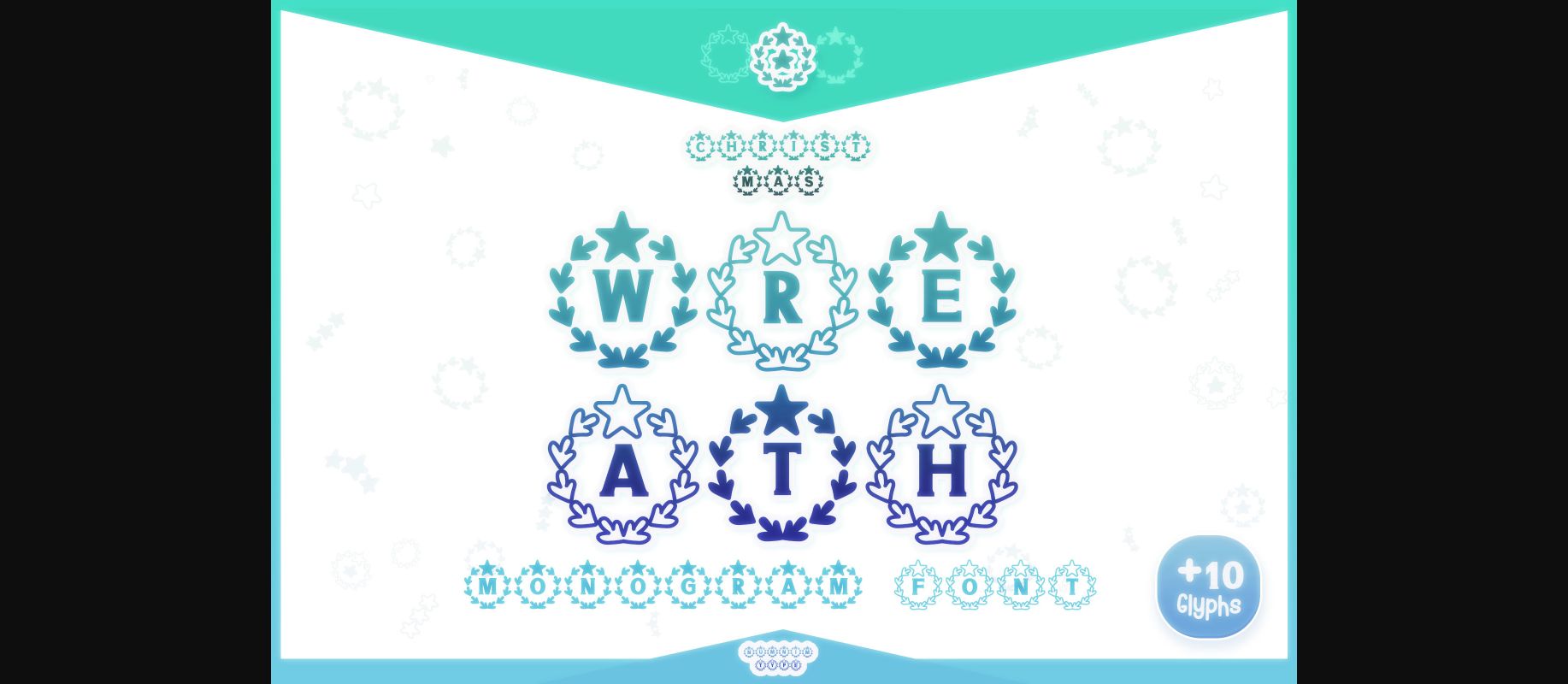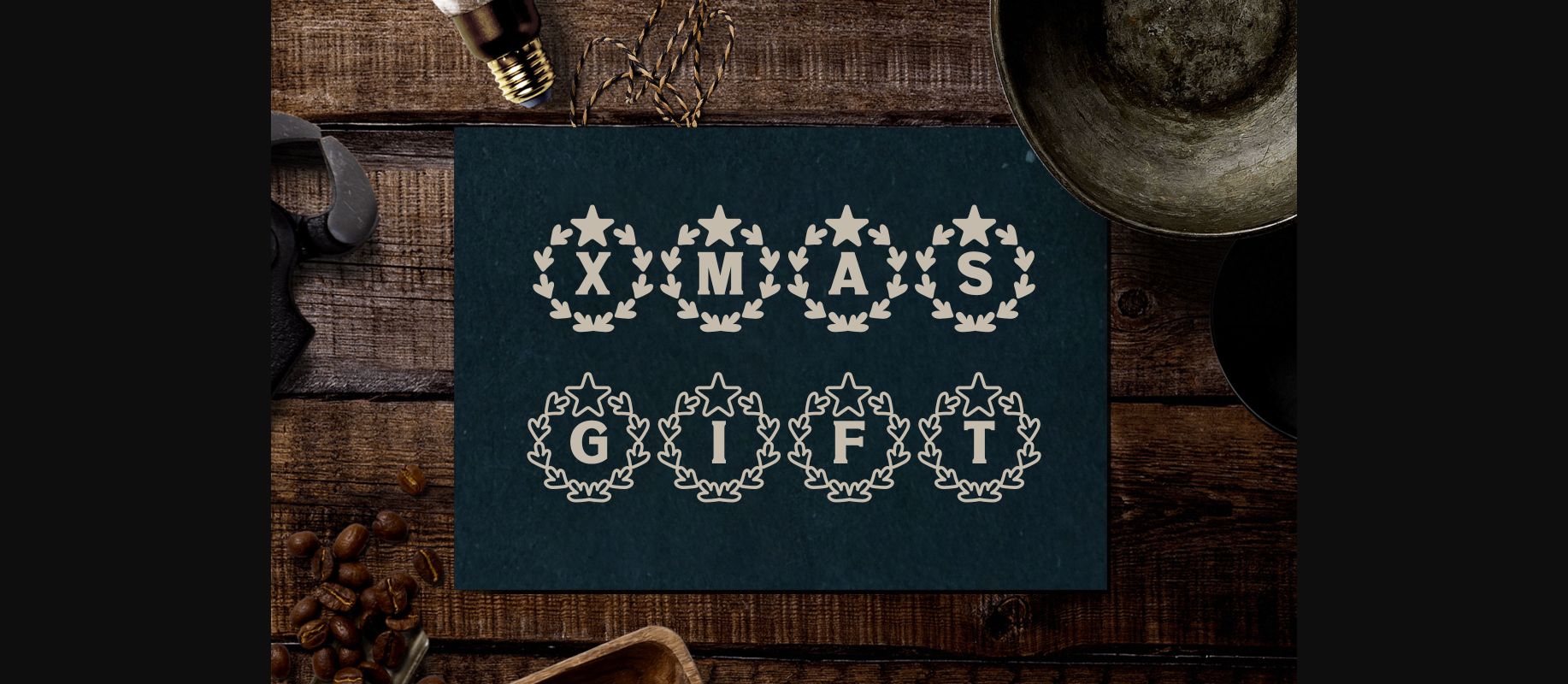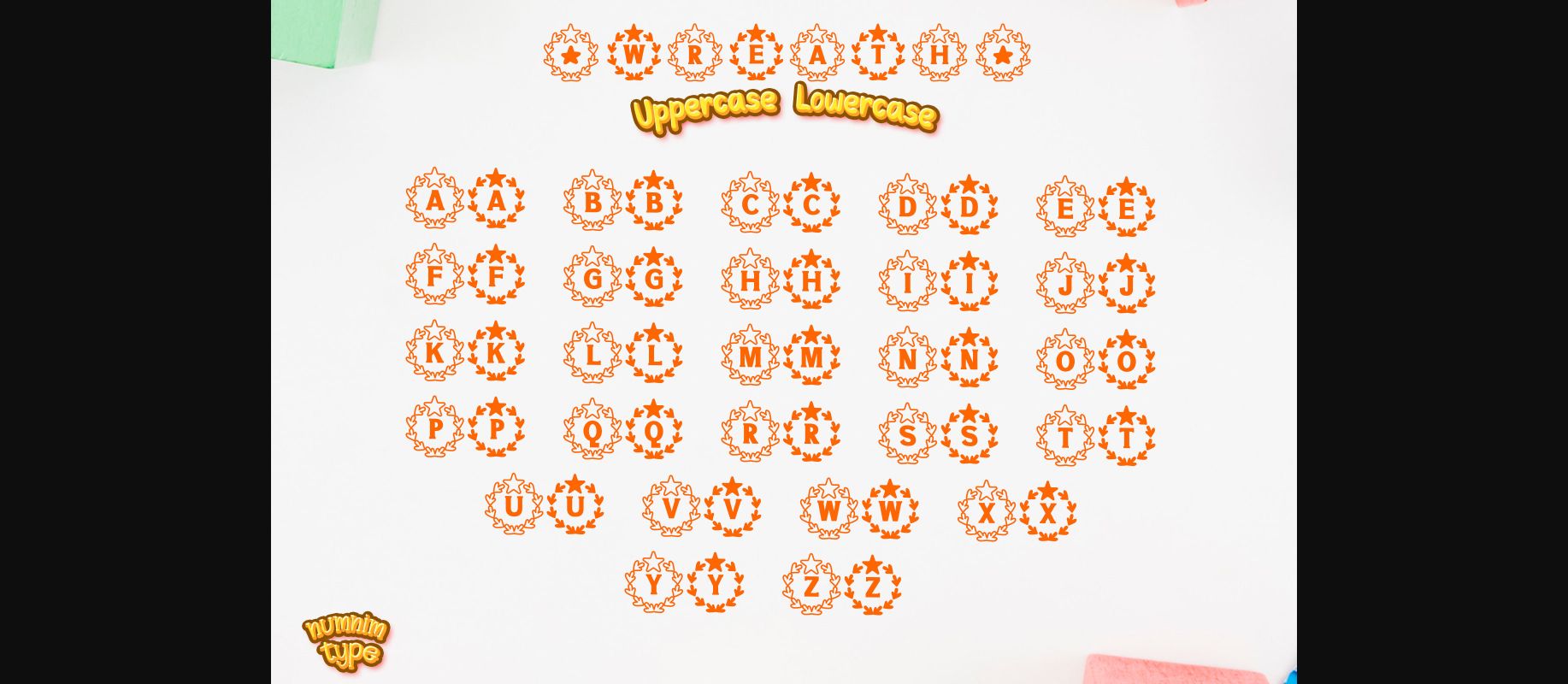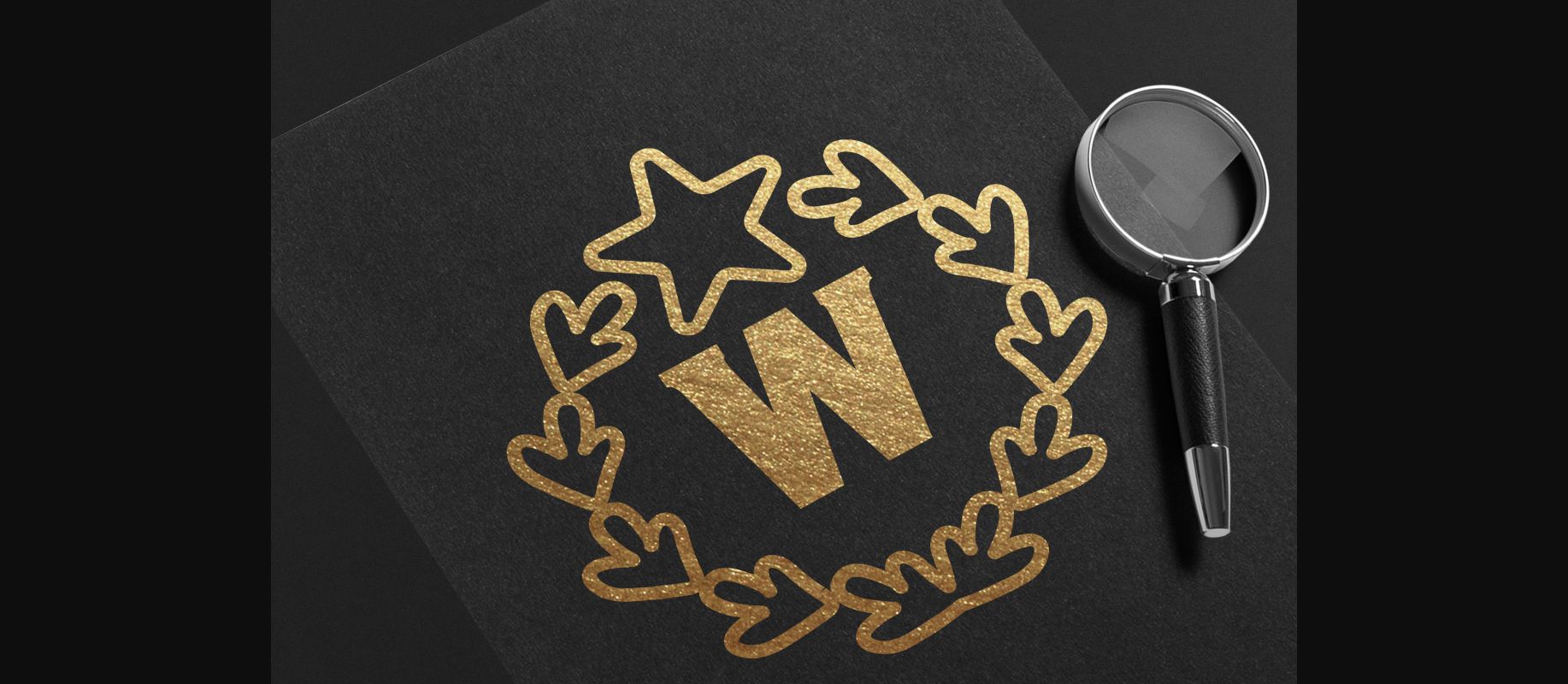
About Christmas Wreath Font
Christmas Wreath is a cool and uniquely designed decorative font. Each character is fun and playful, perfect for adding a bold accent to your designs! This font is suitable for Christmas Day and winter-related projects. You can see this cute font includes letters shaped as Christmas wreaths. You can use them to create stickers, mugs, t-shirts, ornaments, Christmas cards, event invitations, and more.